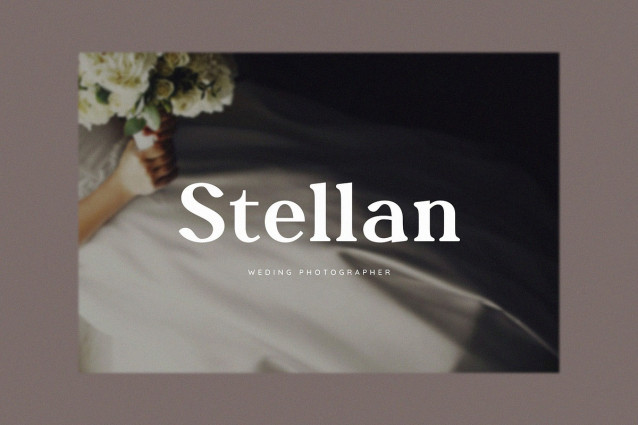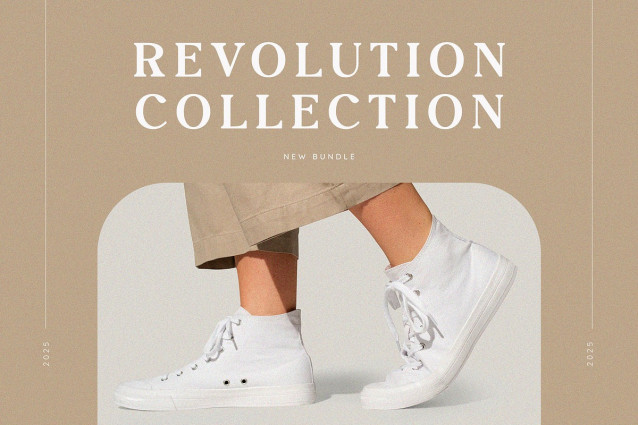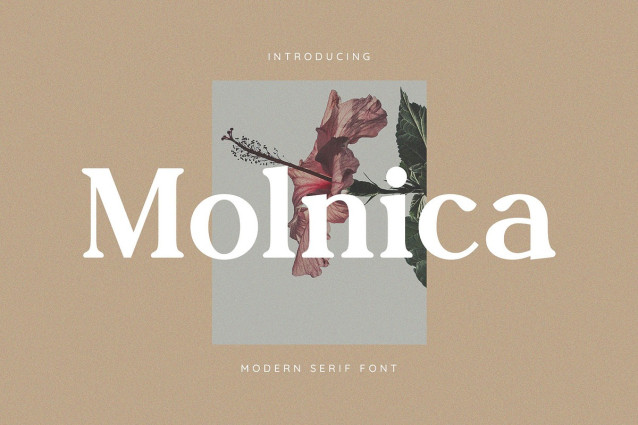
Molnica Font
Molnica Font, a modern serif font that blends bold character with graceful curves. Designed for contemporary elegance, Molnica is the perfect choice for brands, creatives, and designers looking to add a touch of luxury and refinement to their work.
With strong contrast and well-defined serifs, Molnica stands out beautifully in headlines, logos, packaging, wedding designs, and social media visuals. Its timeless style makes it suitable for both high-end and artistic applications.